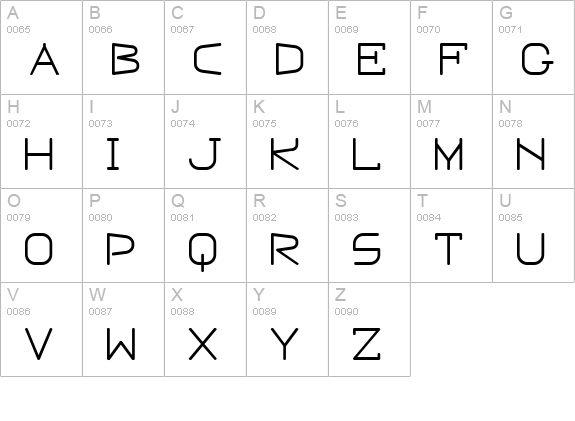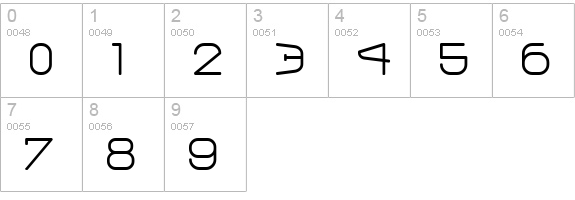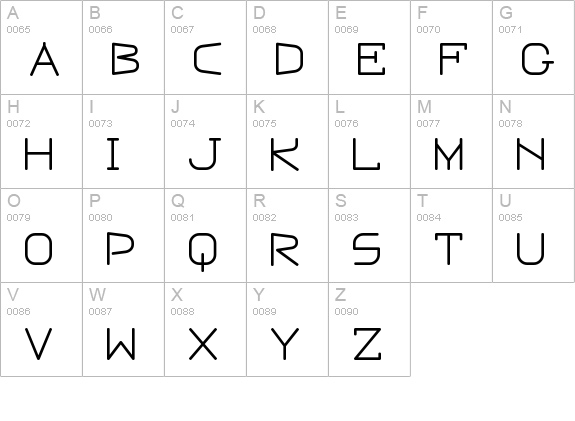
Escape Pod Normal is the standard, neutral variant in the Escape typeface family \xE2\x80\x94 well suited to general body text, paragraphs, and standard typographic work.
Escape Pod Normal font is a versatile typeface that combines futuristic elements with a clean and modern design. Perfect for projects that require a contemporary and edgy look, this font exudes a sense of adventure and innovation. Its sleek lines and bold characters make it ideal for logos, headlines, posters, and more. What makes Escape Pod Normal font even more appealing is that it is available for free download at FontsMarket.com. This means you can easily access this stylish font and use it in your designs without any cost. Don't miss out on the opportunity to add a touch of sophistication and creativity to your projects with Escape Pod Normal font.